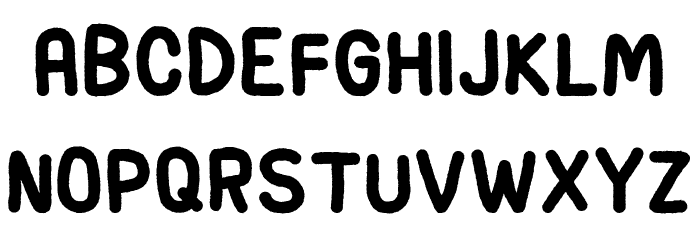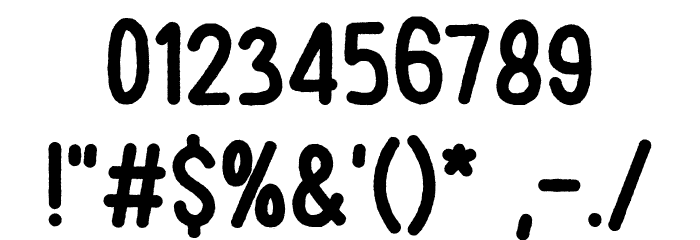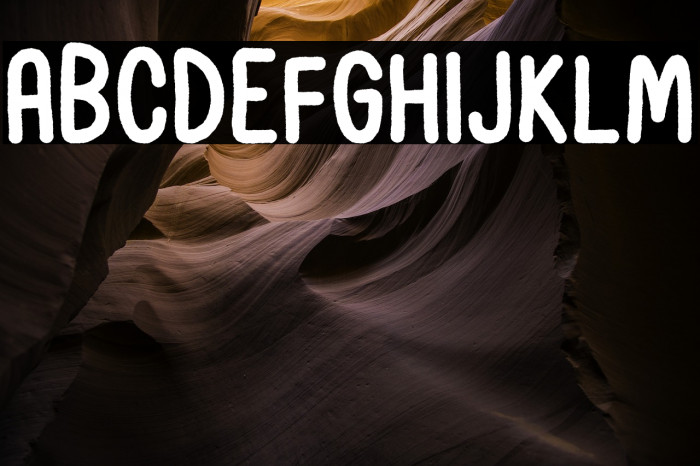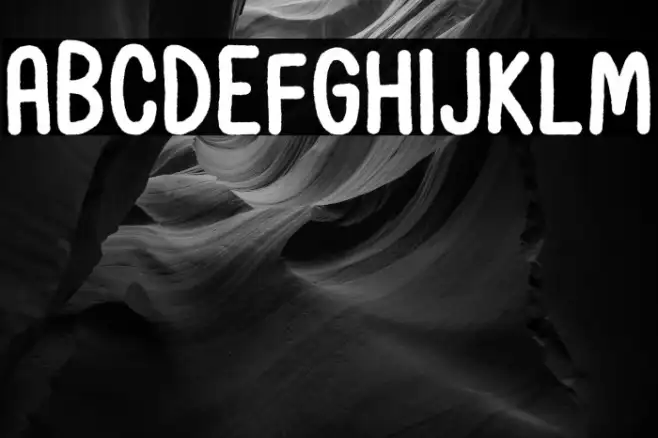
Earth Spirit Font
This font features a playful and organic style, characterized by its rounded and slightly irregular letterforms. The strokes are bold and consistent, giving it a hand-drawn appearance that conveys warmth and approachability. The characters are evenly spaced, with a slight variation in stroke thickness that adds to its casual and friendly feel. The overall design is reminiscent of natural, earthy elements, making it suitable for projects that aim to evoke a sense of nature or creativity. Its legibility is maintained across both uppercase and lowercase letters, as well as numerals and special characters.
A playful, hand-drawn font with rounded, organic letterforms.
- Proposed Projects: Ideal for eco-friendly branding, children's books, creative posters, and artisanal product packaging.